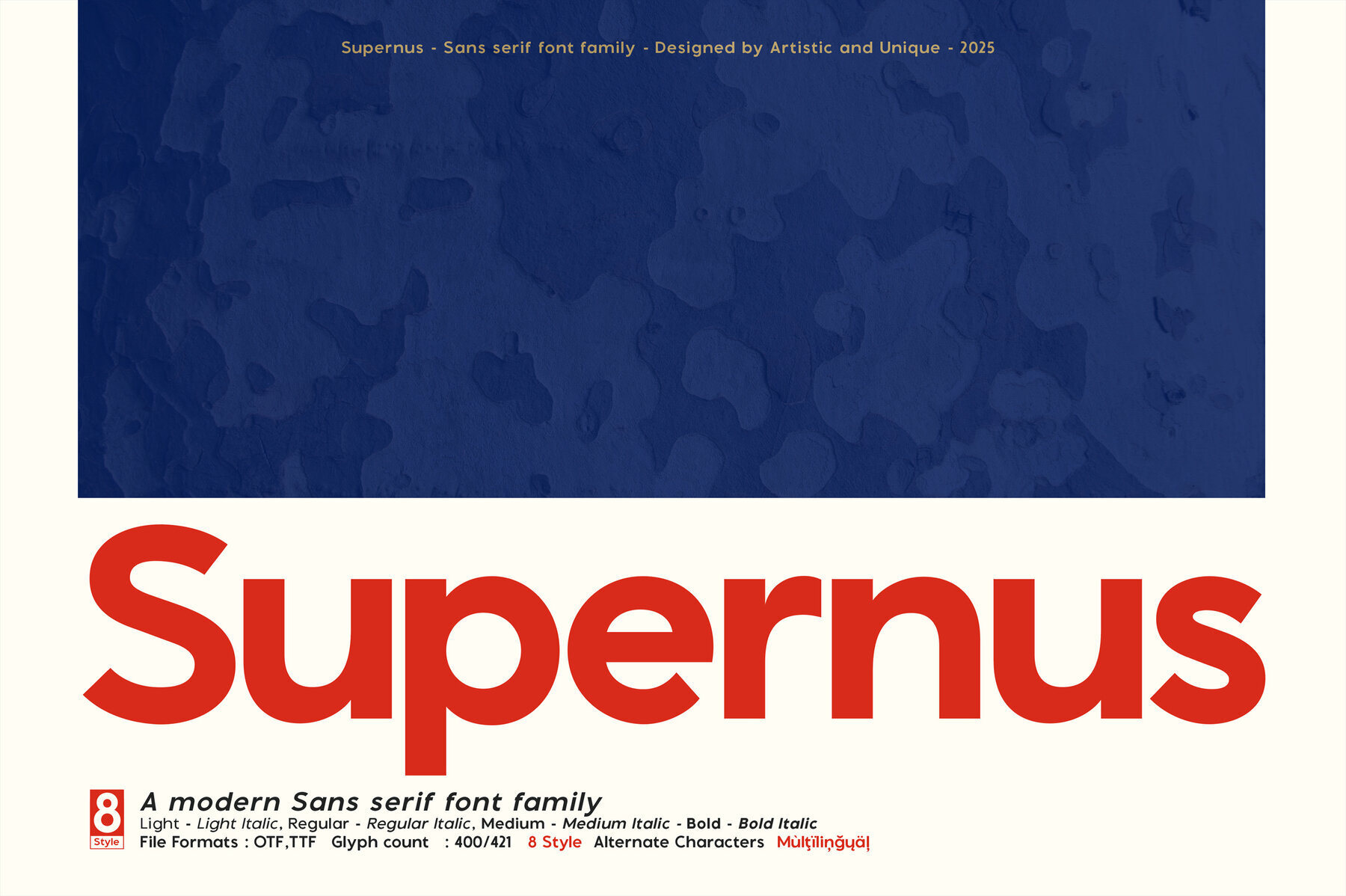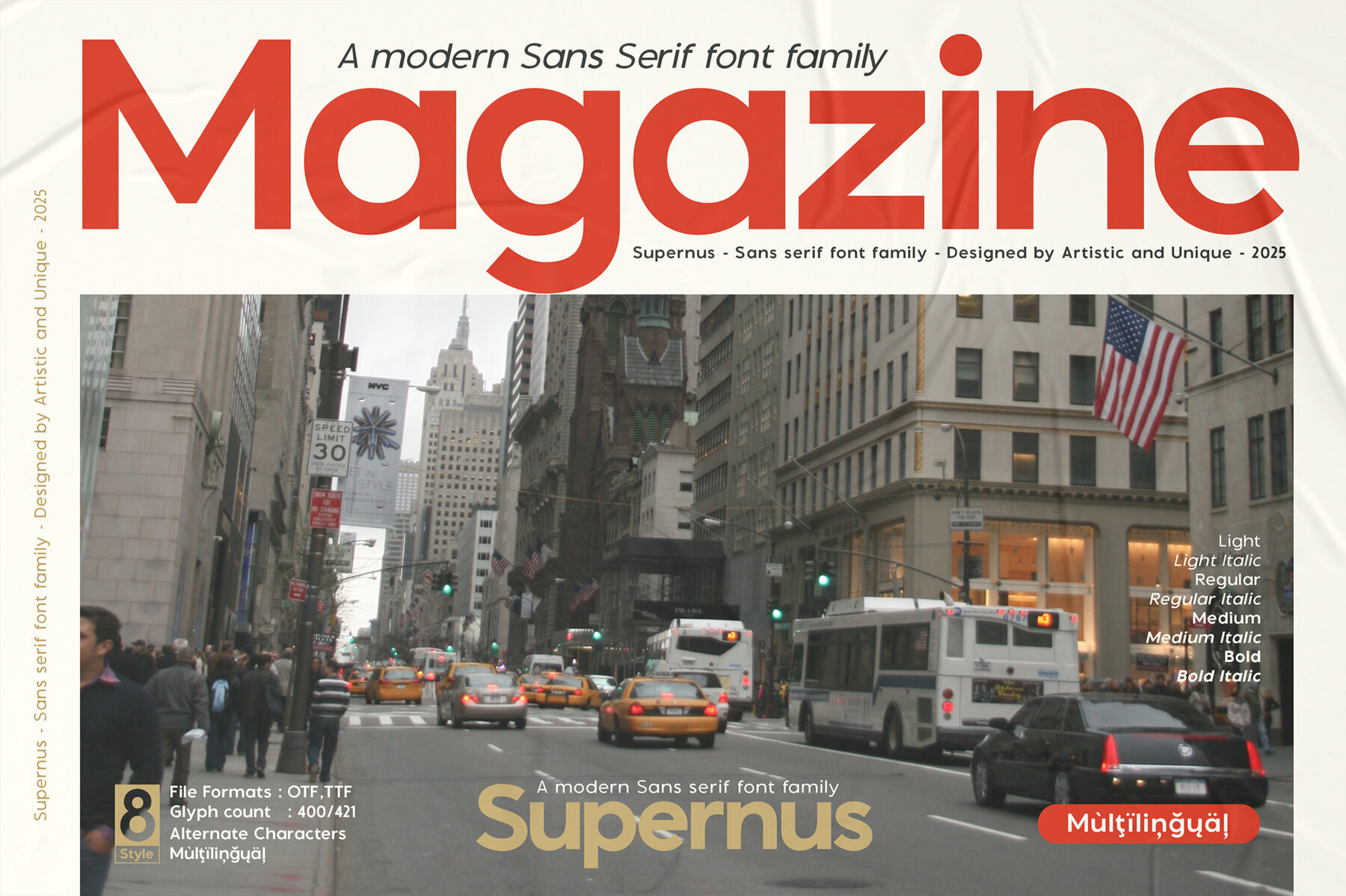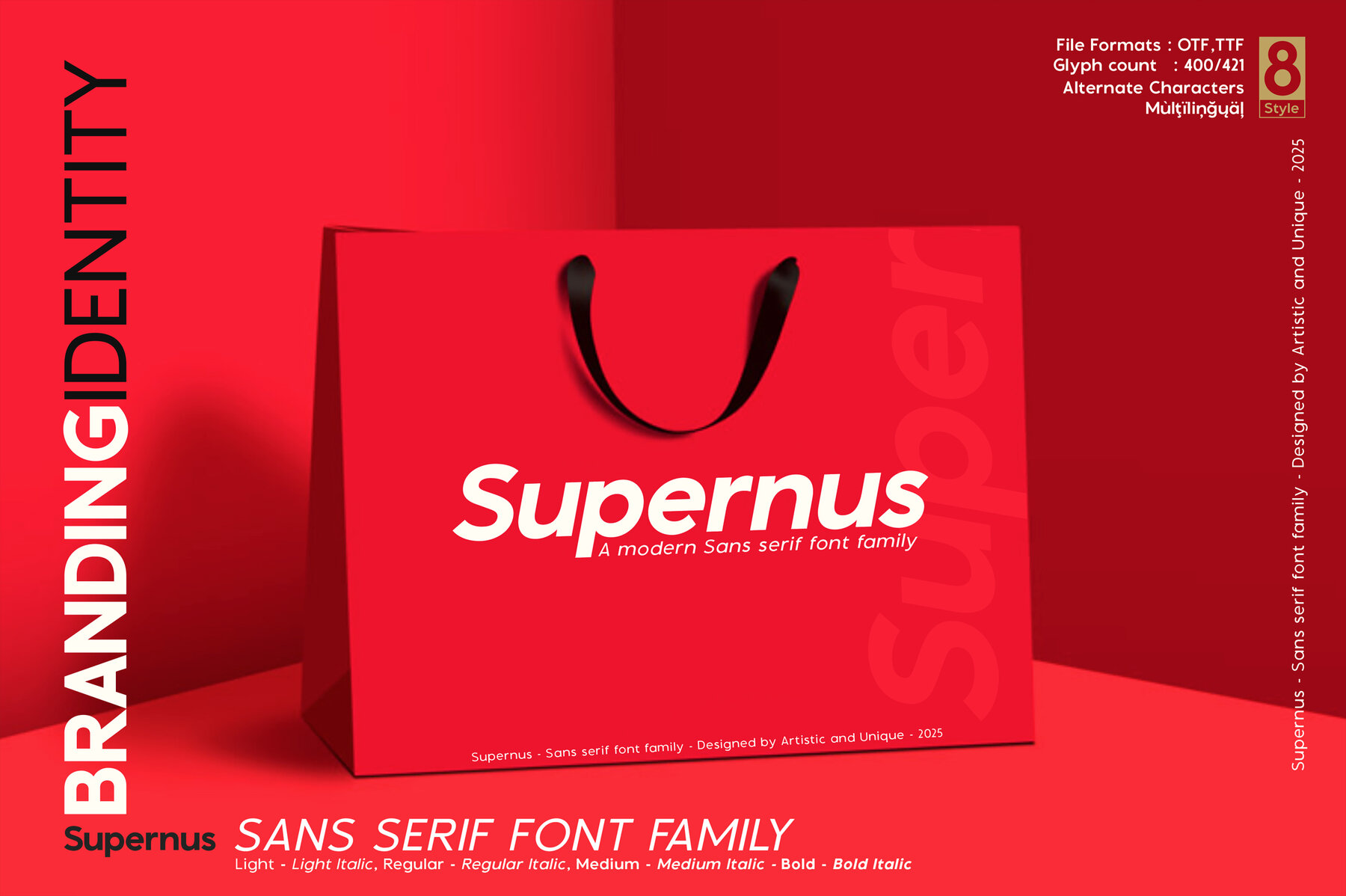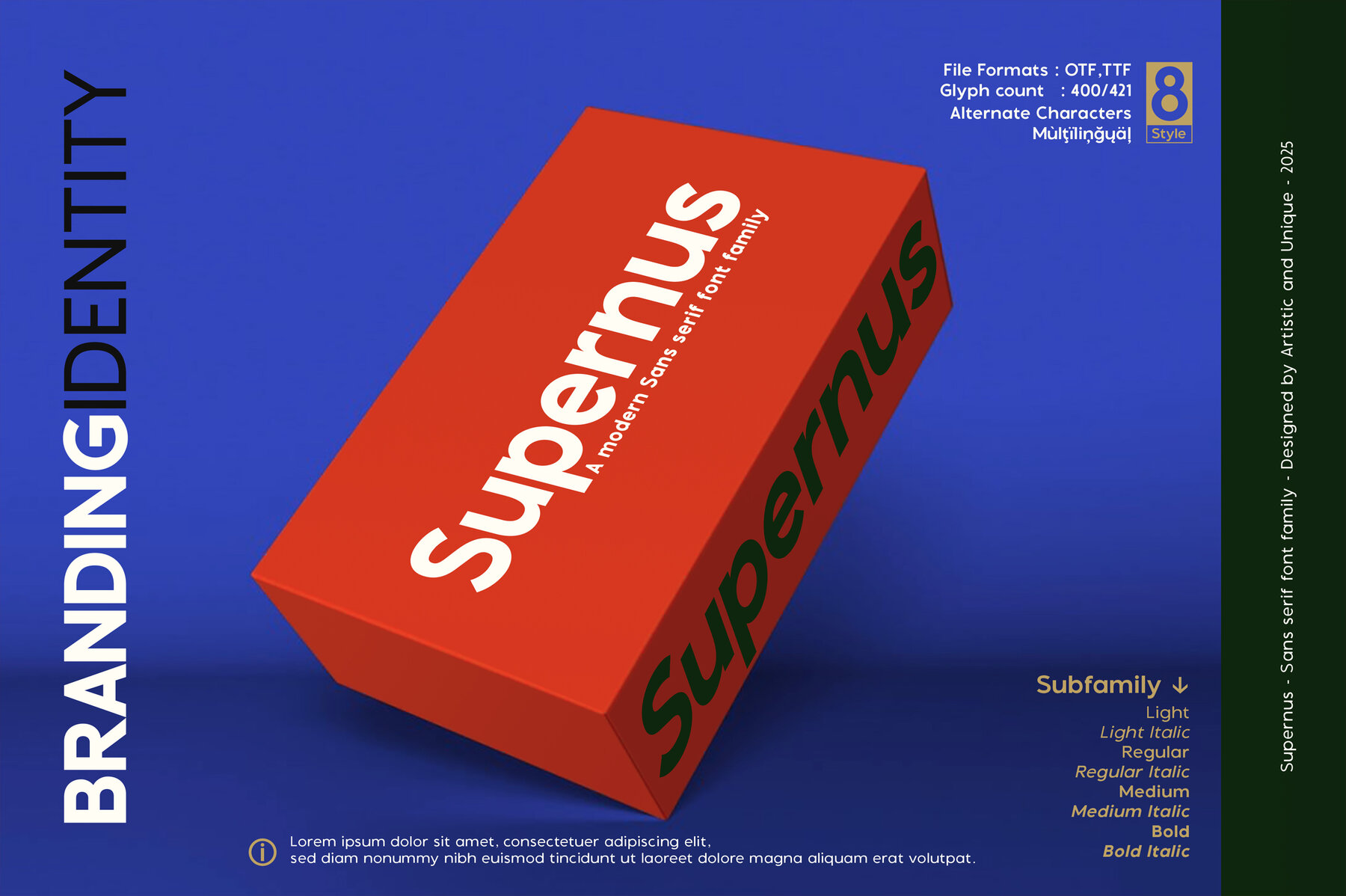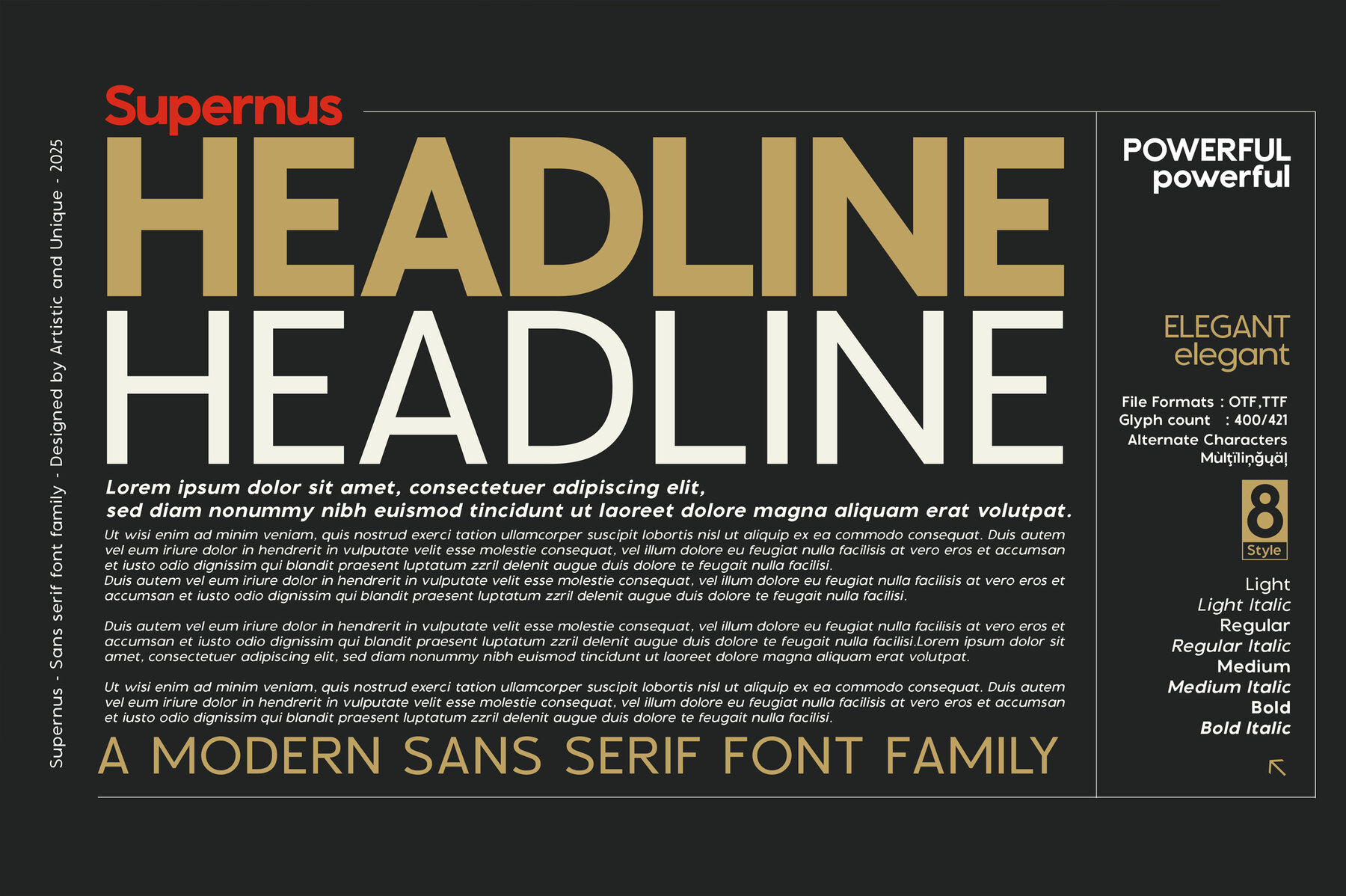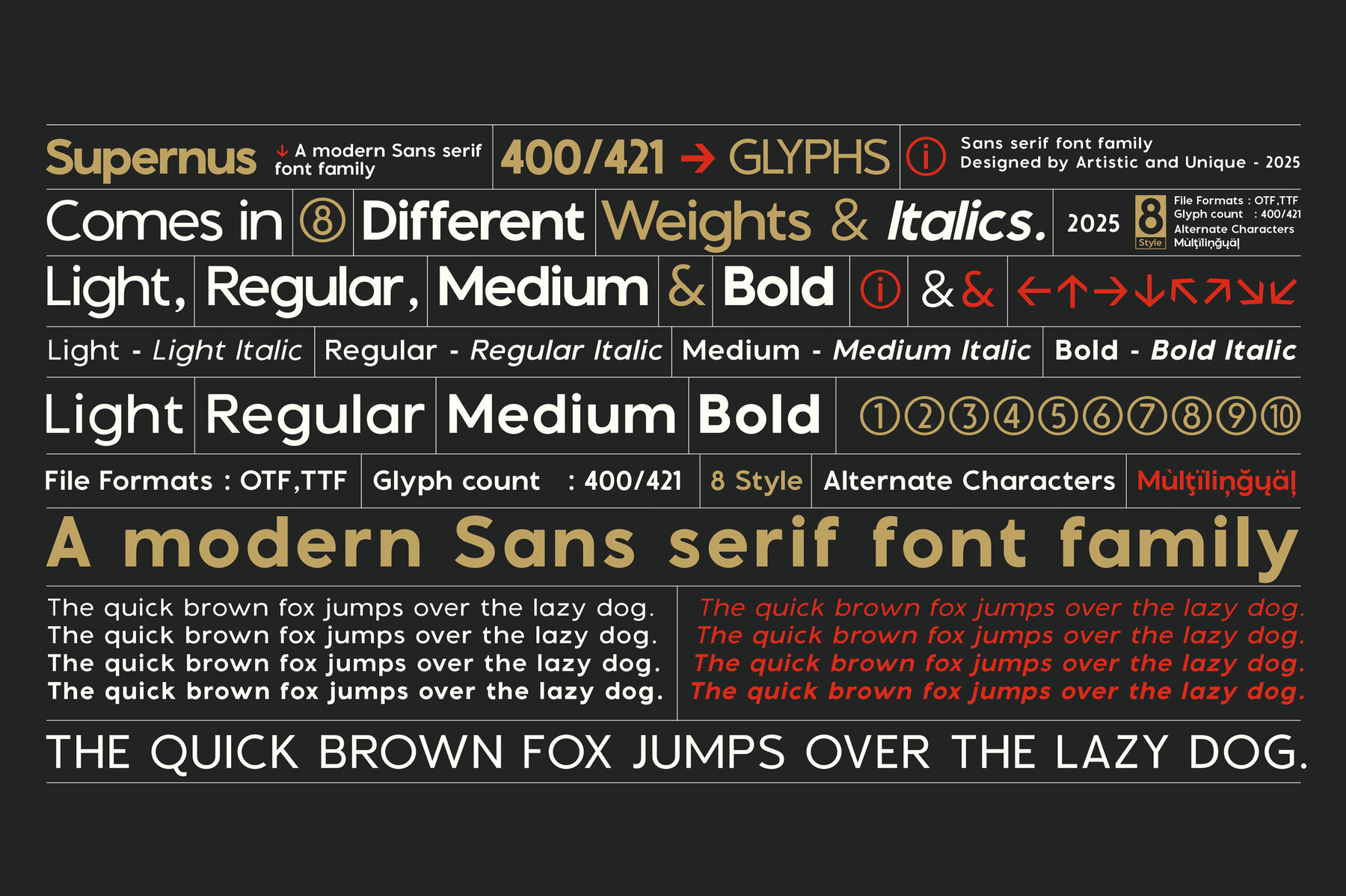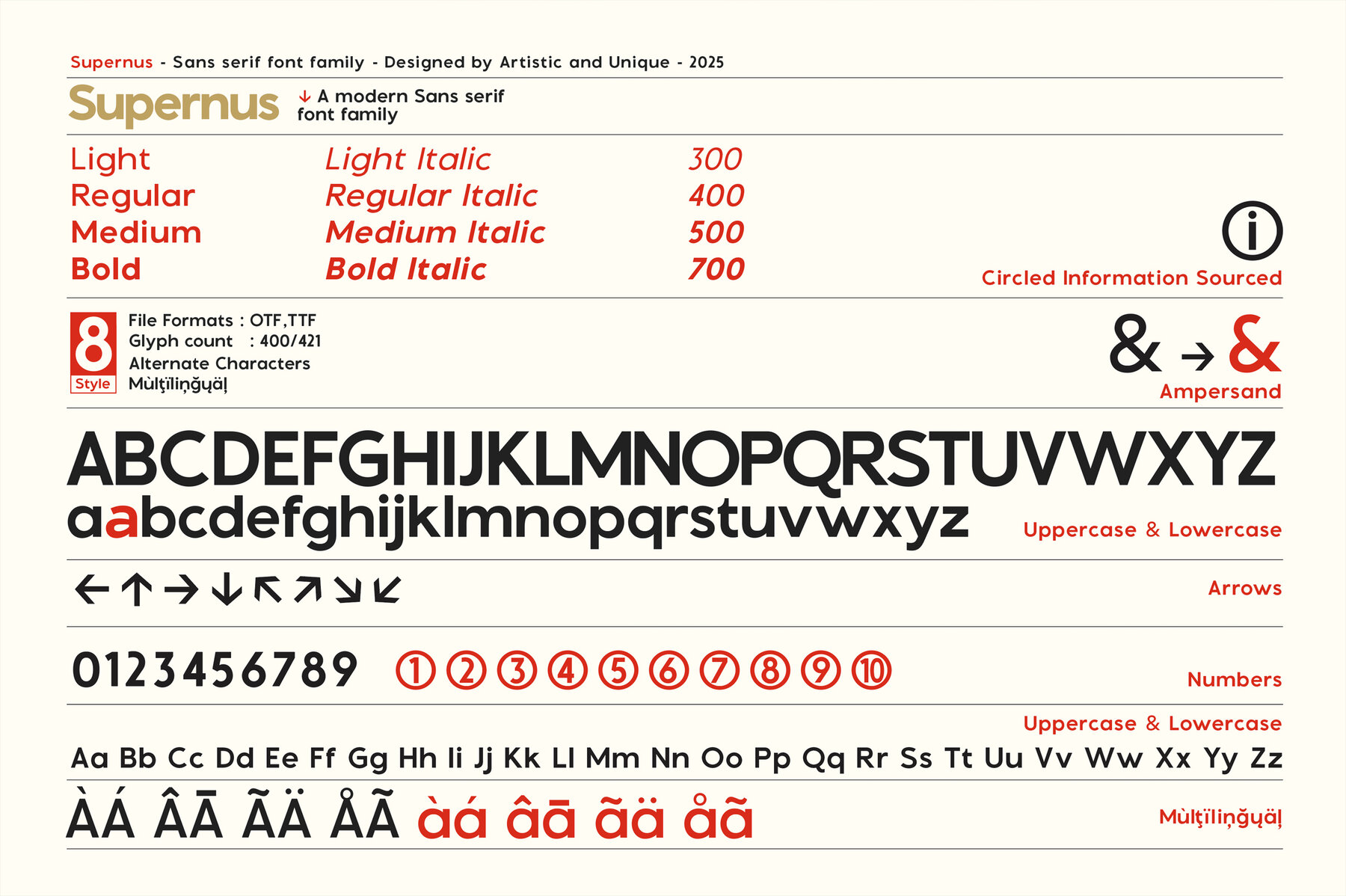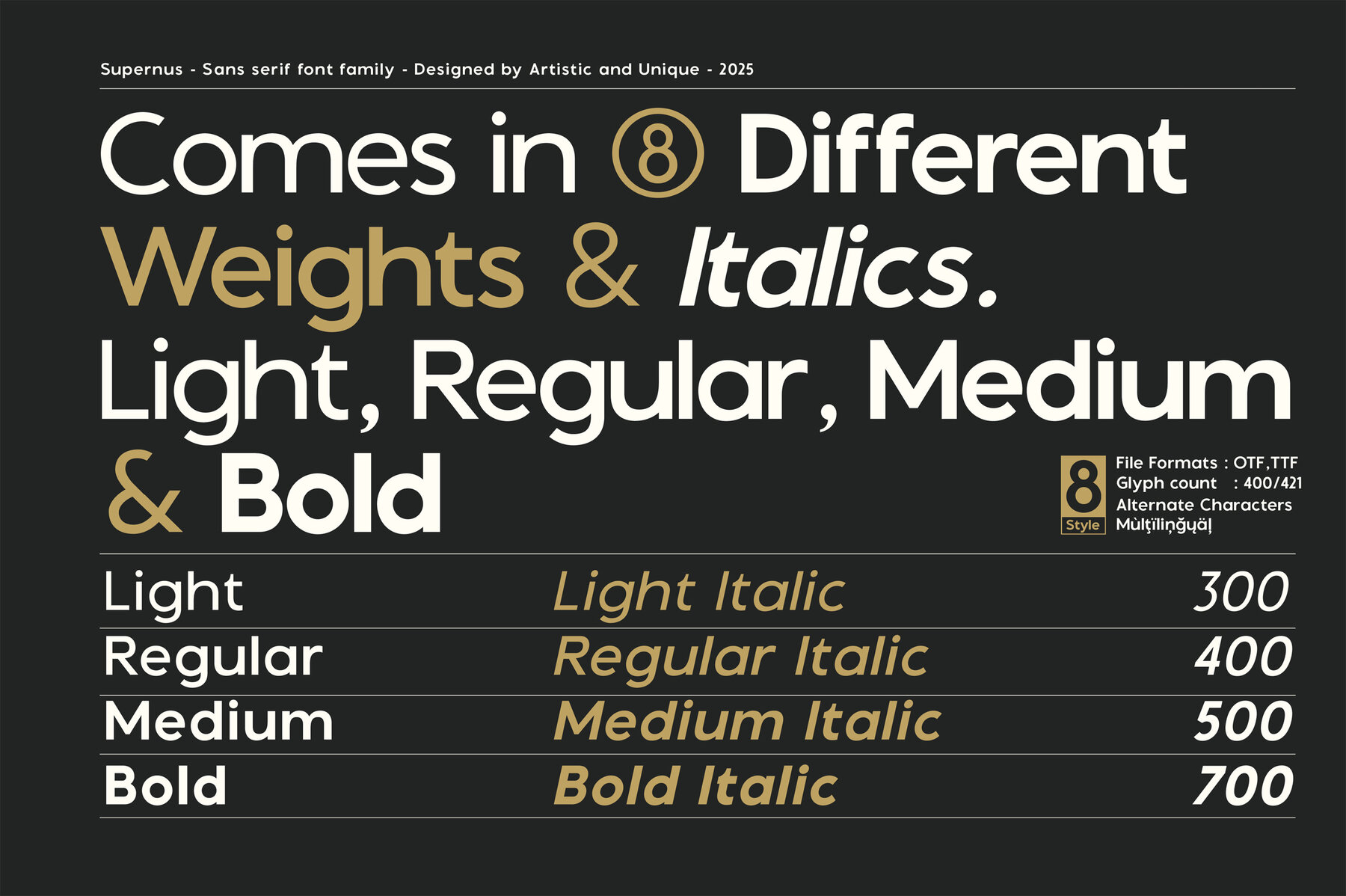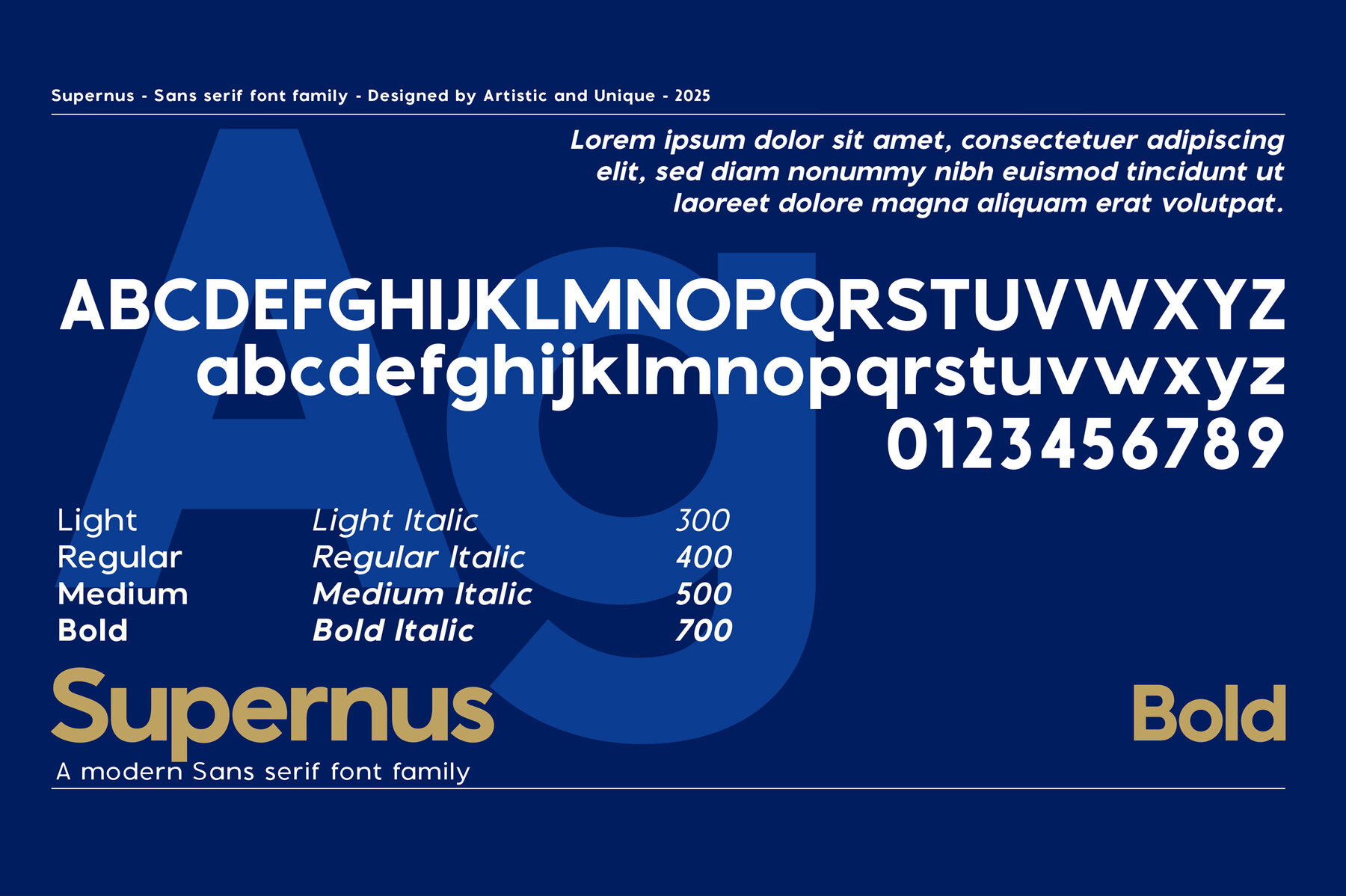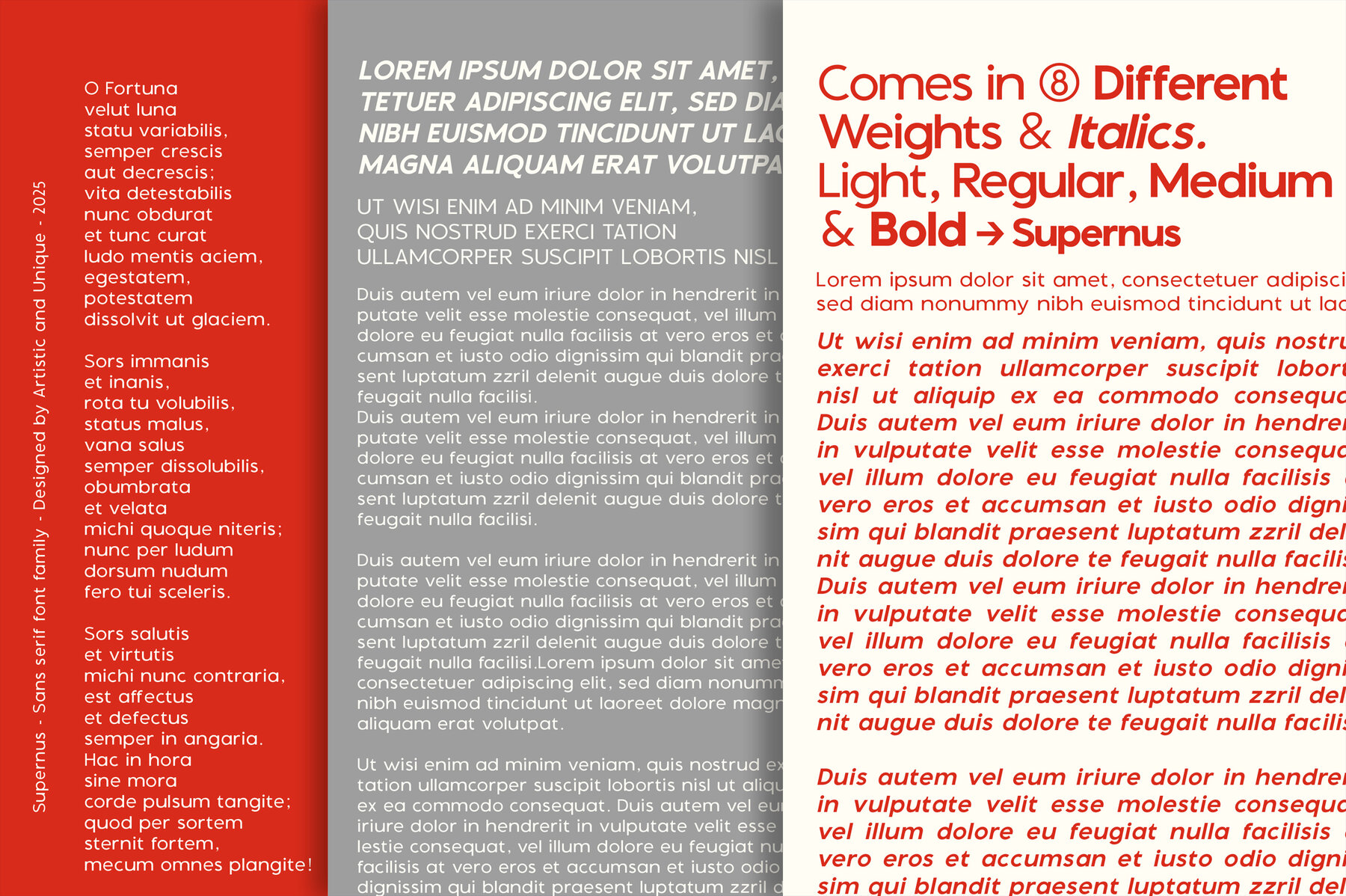
Supernus Font
Supernus, a comprehensive sans serif font family, offers a refined solution for designers seeking to elevate their visual toolkit. With its innovative design, Supernus ensures seamless integration into both digital and print projects. It boasts a structural anatomy that enhances modern appeal while maintaining versatility, making it ideal for creating standout branding materials. The family encompasses eight distinct styles, each offering superior readability and elegance, perfect for a variety of creative pursuits. Multilingual support enhances its global adaptability, while lighter tones provide a sophisticated touch and bolder tones draw attention to headlines. Whether designing books, magazines, newspapers, editorial headlines, websites, or logos, the Supernus font family provides a harmonious mix of modern and classic aesthetics. It respects traditional design while meeting the demands of contemporary needs, making it a versatile choice for any design project.Supernus: A Modern Sans Serif for Diverse Designs